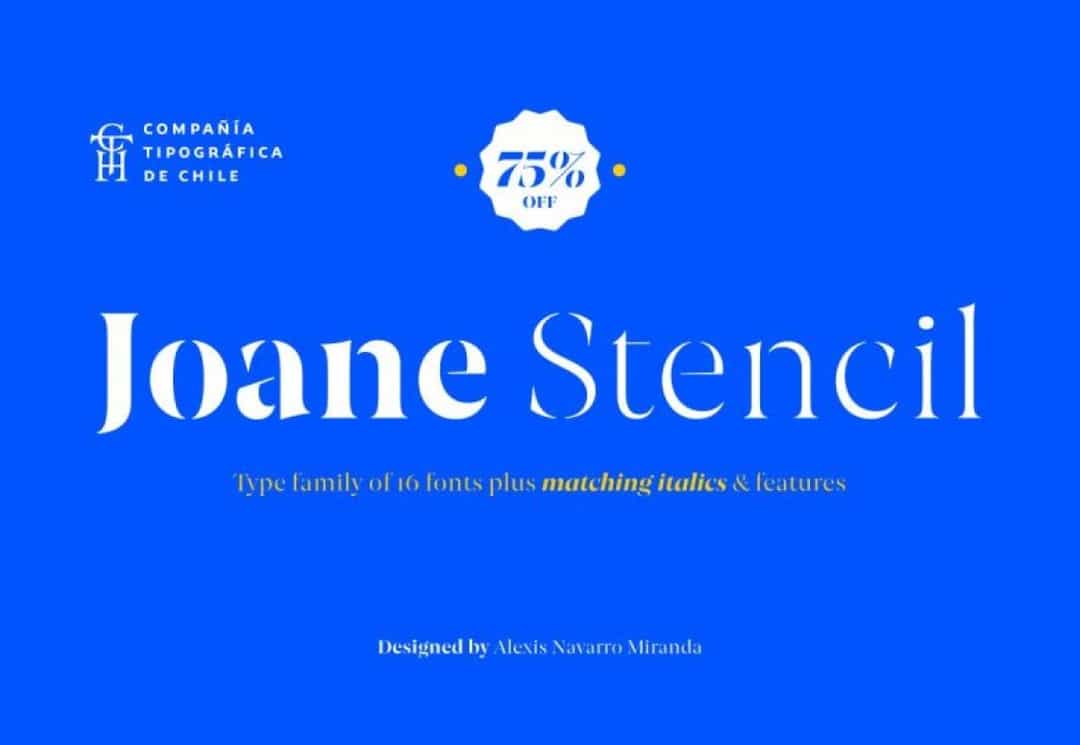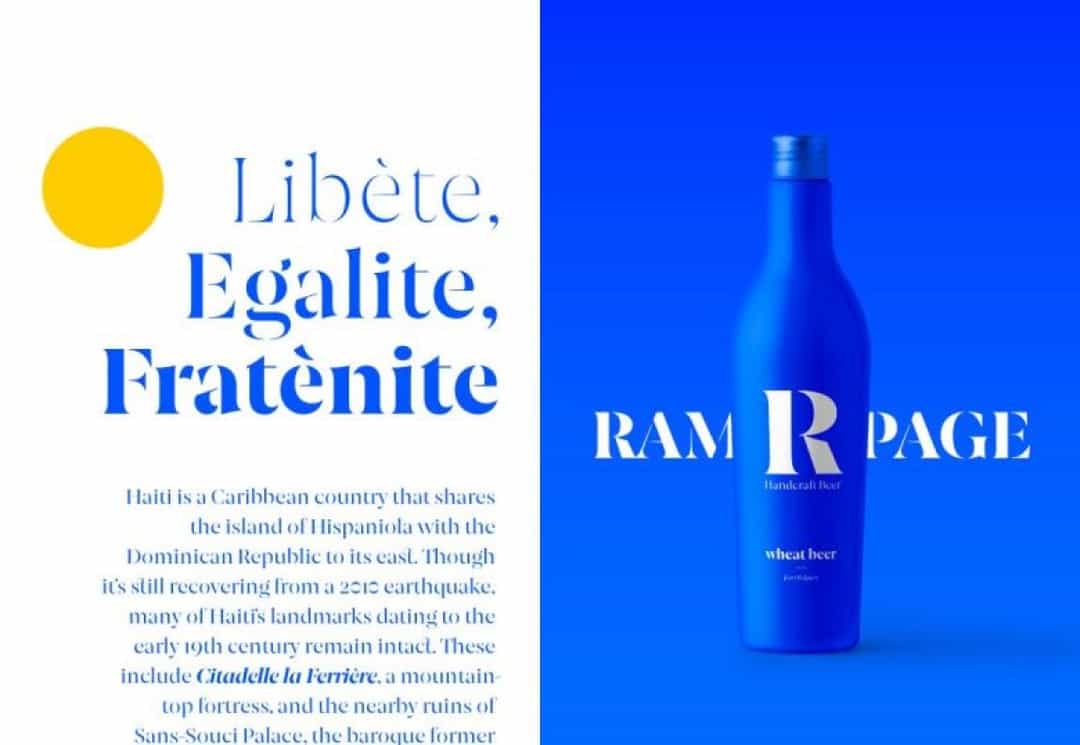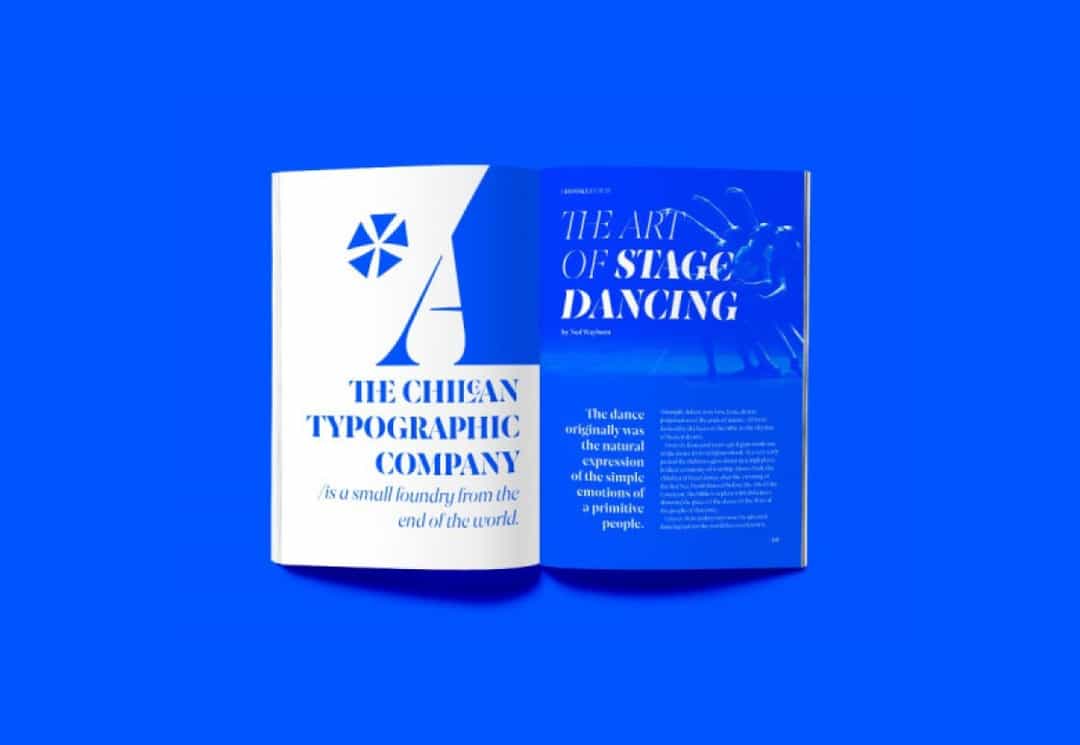
Joane Stencil Serif Font Familyis Joane’s lively follow-up. Combining elegant French didones, calligraphic endings, serif glyphic serifs and Stencils carefully designed by hand into one font gives this font family its signature style while offering strong OpenType features for every style.